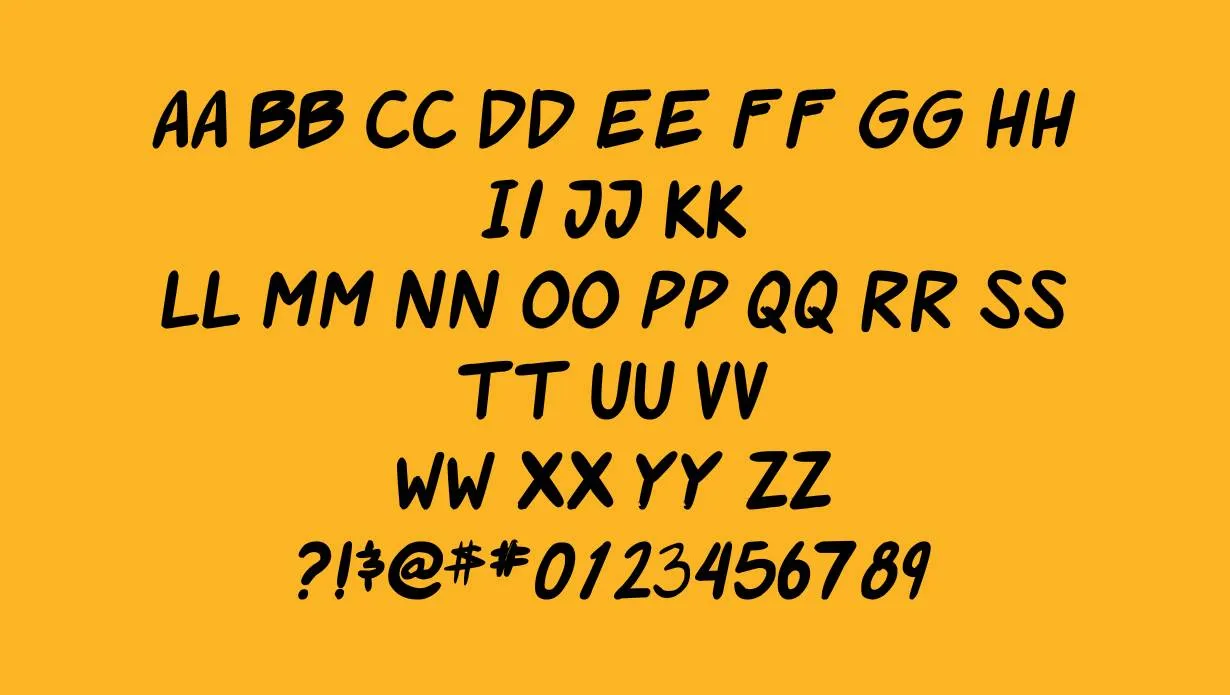
The Roff font is a leap into the future, a sleek embodiment of technology. It’s like your text is written in a font from the forefront of progress, each letter representing an innovation in design.
Using this font gives your words a cutting-edge, modern allure as if you’re crafting messages from the technological forefront.
| Name | Roff Font |
| Designer | Joe F. Ossanna |